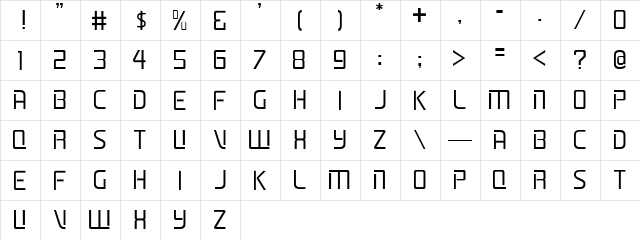
Lifeline JL Regular
| Foundry | Jeff's Fonts & Dingbats |
| Designer | Jeffrey N. Levine |
Design Context for Lifeline JL Typeface
Lifeline JL offers clean, dependable letterforms without strong stylistic allegiance, making it a practical choice for designers who need flexibility.